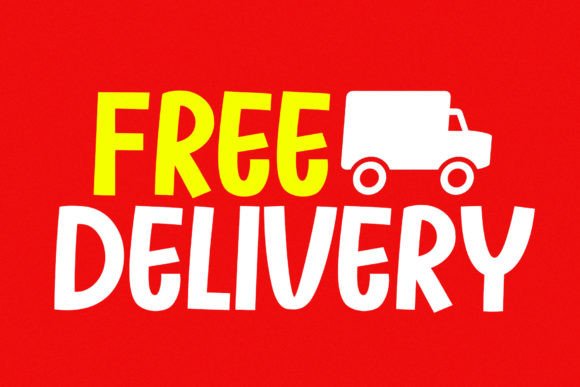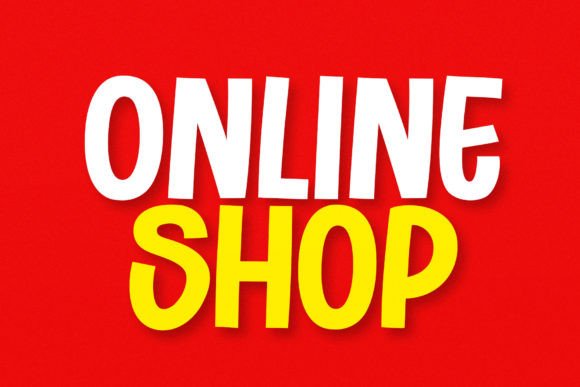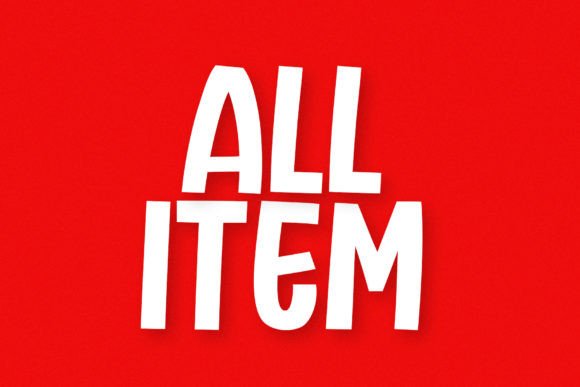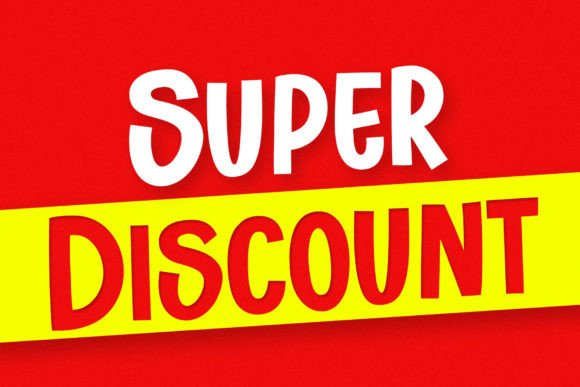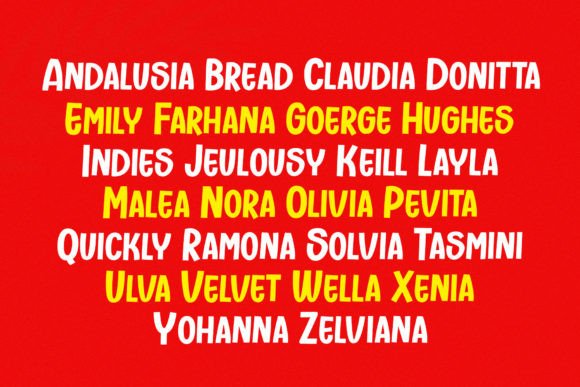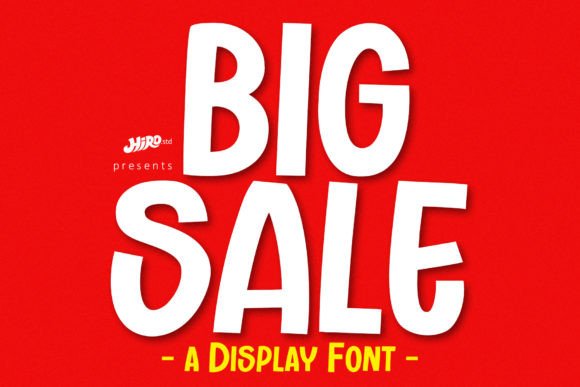
The Big Sale Font: A Joyful Addition to Your Design Arsenal
Ah, the elusive perfect font. You know, that one font that makes your design project go from meh to mesmerizing. I’ve been there, done that, and got the t-shirt (which, by the way, was designed with a font that was almost, but not quite, perfect). One of my most memorable design struggles was working on a client’s sale flyer. The goal was to create a buzzworthy promotion that would drive sales and put a smile on customers’ faces. That’s when I stumbled upon the Big Sale Font. This fun and dynamic display font has since become a staple in my design toolkit, and I’m excited to share its awesomeness with you!
What I Love About Big Sale Font
- ✨ Joyful and playful vibe: Big Sale Font is designed to make your designs pop with a joyful and playful vibe. Its unique style is perfect for creating eye-catching promotions, fun event announcements, or lively social media graphics.
- ✅ Easy to read: Despite its playful nature, Big Sale Font remains surprisingly legible, even at smaller sizes. This makes it a versatile choice for various design applications.
- 💥 Attention-grabbing: Let’s face it – Big Sale Font is a showstopper. Its bold and dynamic style demands attention, making it perfect for headlines, titles, and promotional materials.
While Big Sale Font is an excellent addition to your design arsenal, it’s not without its quirks. Here are a few things to keep in mind:
- 🤔 Limited use cases: Due to its bold and playful nature, Big Sale Font might not be the best choice for body text or more formal designs. It’s perfect for headlines and titles, but you might want to pair it with a more traditional font for longer blocks of text.
- ⚠️ Overuse: As with any bold font, be cautious not to overuse Big Sale Font. Too much of a good thing can quickly become overwhelming. Balance it with other design elements and fonts to create visual harmony.
Big Sale Font comes with a range of OpenType features and glyphs that can enhance your designs. Here are a few tips on how to access and use them:
The Designer Inspiration Behind Big Sale Font
Big Sale Font was designed with one goal in mind: to create a fun and dynamic display font that would add a joyful touch to designs. The designer, inspired by the world of retail and advertising, aimed to craft a font that would stand out in a crowded marketplace. The result is a font that’s both playful and attention-grabbing, perfect for creating memorable designs.
Q: What type of designs is Big Sale Font best suited for?
A: Big Sale Font is perfect for designs that require a playful and attention-grabbing font, such as promotions, sales, events, and social media graphics.
Q: Can I use Big Sale Font for body text?
A: While Big Sale Font is legible, it’s not ideal for body text due to its bold and playful nature. It’s best used for headlines and titles.
Q: Is Big Sale Font available in different weights or styles?
A: Big Sale Font comes in a single weight, but its unique style and OpenType features provide plenty of creative possibilities.